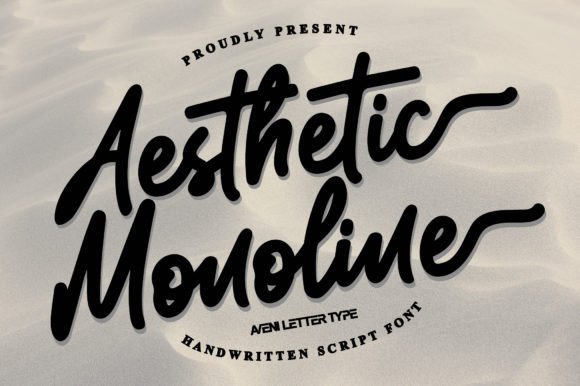
The Perfect Brushstroke: Unleashing the Beauty of Aesthetic Monoline Font
As a designer, have you ever felt the excitement of bringing a project to life with a single, perfectly chosen font? For me, it’s the moment when the words start flowing onto the page, and the design begins to take shape. It’s a feeling that’s hard to describe, but it’s a mix of creativity, inspiration, and a dash of magic.
That’s exactly what Aesthetic Monoline Font can bring to your designs. This elegant monoline handwritten script font is perfect for adding a touch of personality to your projects. From wedding invitations to logos, Aesthetic Monoline Font is a versatile choice that can elevate any design. With its PUA encoding, accessing all the glyphs and ligatures is a breeze, making it a valuable asset for designers who want to add a unique touch to their work.
Aesthetic Monoline Font Key Features
- Unique Characteristic: Distinctive monoline style, where the thickness of the strokes remains consistent throughout the font, creating a visually appealing and modern aesthetic.
Aesthetic Monoline Font Review
Overall, I’m quite impressed with the Aesthetic Monoline Font. It has a unique, minimalist design that adds a touch of sophistication to any project. ✨
The font’s clean lines and uniform spacing make it perfect for headings, titles, and other large-scale text elements. The font’s versatility allows it to work well in various contexts, from digital displays to print materials.
- ⚠️ The font may not be suitable for projects that require a lot of text manipulation, as its monoline design can make it difficult to read in certain circumstances.
- ⚠️ The font’s simplicity may not be ideal for projects that require a lot of visual interest or complexity.
Despite its limitations, the Aesthetic Monoline Font is a solid choice for designers looking for a clean, modern font. Its unique design and open license make it an attractive option for a wide range of projects. With some careful consideration of its limitations, I believe this font can be a valuable addition to any designer’s toolkit.
Tips for Getting the Most Out of Aesthetic Monoline Font
Use Aesthetic Monoline Font to create a cohesive look across your branding materials.
Experiment with different font sizes and colors to create a unique visual identity.
Use the “Spacing” tool to create a distinctive look and feel.
Aesthetic Monoline Font is perfect for:
Branding materials, such as business cards and letterheads.
Marketing materials, such as brochures and flyers.
Web design, such as headings and titles.
Alternatives to Aesthetic Monoline Font
Great Vibes is a beautiful, elegant script font that is perfect for creating a sophisticated and refined look. It is ideal for use in titles, headings, and other design elements where a touch of elegance is needed. In comparison to Aesthetic Monoline Font, Great Vibes has a more classic and traditional feel, with a focus on beautiful letterforms and a wide range of ligatures.